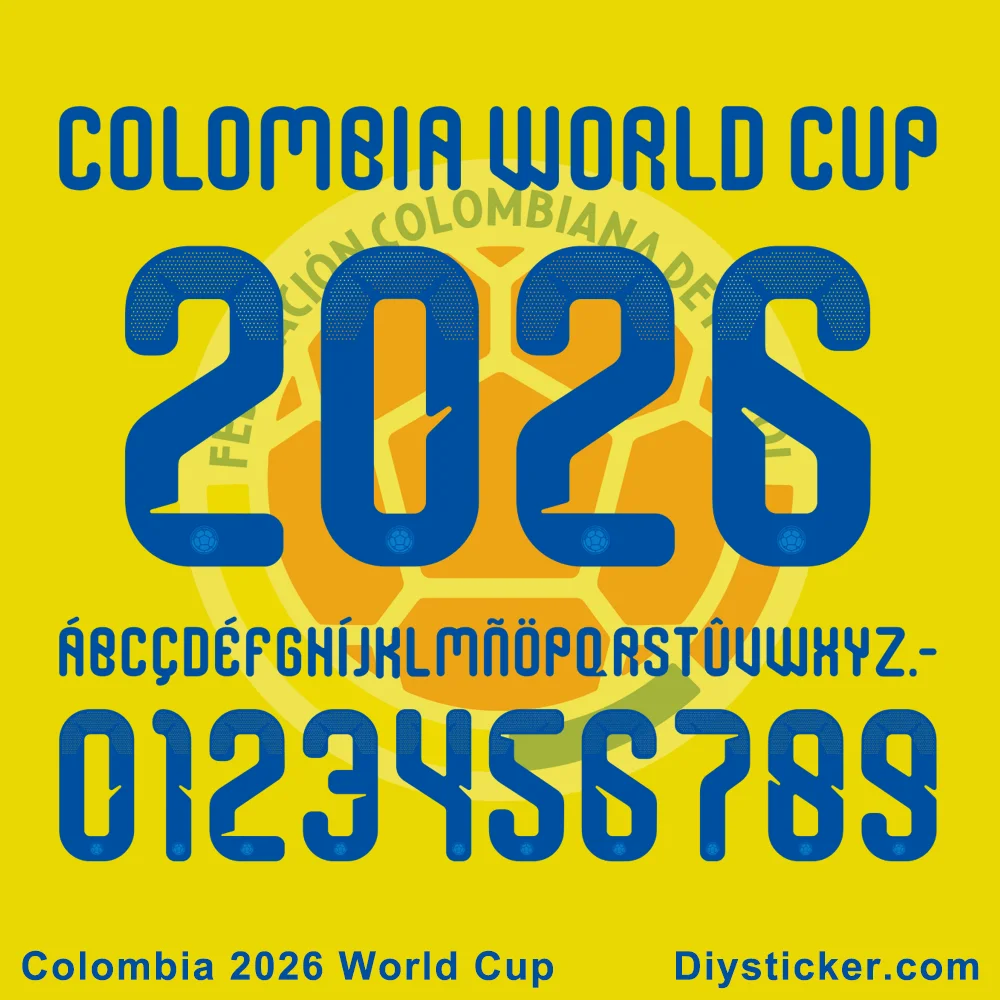
Show your support for Los Cafeteros with the official Colombia 2026 World Cup Font. This is the authentic typeface used by the Colombian Football Federation (FCF) for its official World Cup kits, player names, numbers, and tournament graphics.